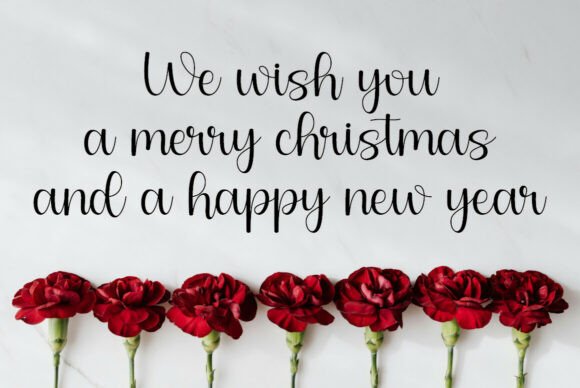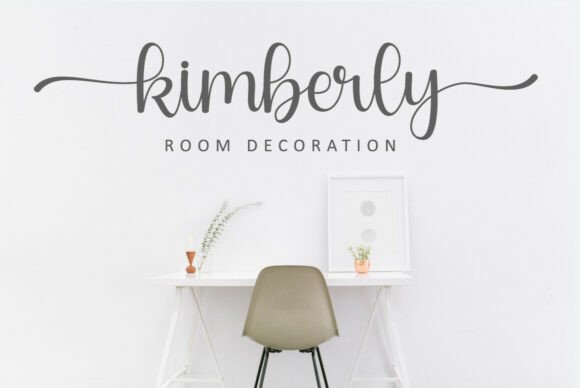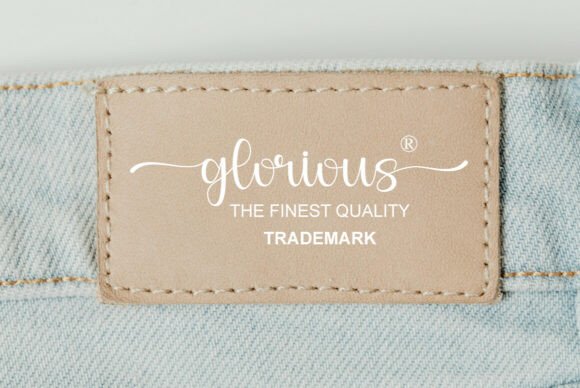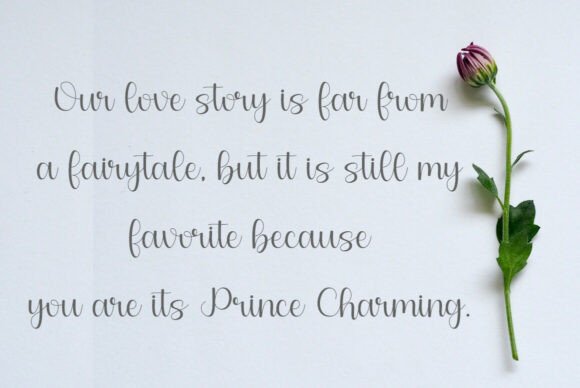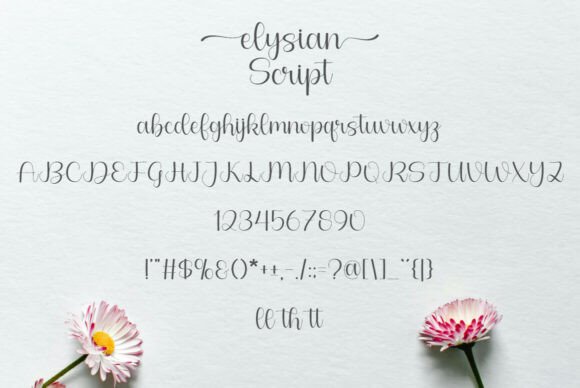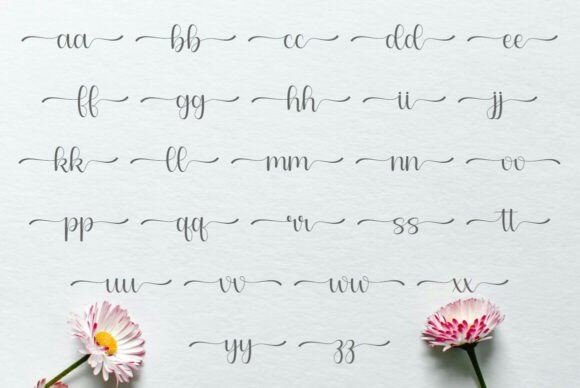
Elysian Script Font: Elevate Your Designs with Elegance and Sophistication
In the world of typography, few fonts capture the essence of elegance and romance as beautifully as the Elysian Script font. This charming, elegant, and gracefully flowing script typeface has been designed to add a touch of sophistication and intimacy to various design projects. With its fine, uniform stroke weight and stunning, oversized swashes, Elysian Script is the perfect choice for designers and crafters looking to infuse their work with a delicate, romantic, and inviting feel.
Characteristics of Elysian Script Font
Elysian Script font is a monoline, handwritten script that boasts a unique blend of intimacy and polish. Its sweeping lines and gentle curves make it an ideal choice for creating a signature look for various design applications. Some of the key characteristics of Elysian Script include:
• Fine, uniform stroke weight: The font features a consistent stroke weight that adds to its elegance and sophistication.
• Oversized swashes: The beautiful, oversized swashes extend with personalized flair, making each design unique and eye-catching.
• Monoline, handwritten script: The font maintains an intimate, authentic feel while delivering polished sophistication.
• Extensive language support: Elysian Script offers extensive language support, making it a versatile choice for designers working with clients from diverse linguistic backgrounds.
• Stylistic alternatives: The font provides stylistic alternatives, allowing designers to create unique text compositions that cater to their specific design needs.
Design Applications for Elysian Script Font
Elysian Script font is a versatile typeface that can be used in a variety of design applications, including:
• Wedding stationery: The font’s elegant and romantic feel makes it perfect for wedding invitations, save-the-date cards, and other wedding-related designs.
• High-end invitations: Elysian Script’s sophisticated and luxurious feel makes it ideal for high-end invitations, such as those used for corporate events or formal gatherings.
• Custom product packaging: The font’s unique and decorative style makes it a great choice for custom product packaging, adding a touch of elegance and sophistication to any product.
• Feminine branding: Elysian Script’s feminine and romantic feel makes it perfect for branding projects that cater to a female audience.
Practical Benefits of Elysian Script Font
While Elysian Script font is undoubtedly a decorative typeface, it also offers several practical benefits, including:
• Legibility: The font’s soft, legible letterforms ensure that it is easy to read, making it suitable for use in a variety of design applications.
• PUA encoding: Elysian Script font is PUA-encoded, ensuring effortless access to all glyphs and making it easy to use in design software.
• Decorative and practical: The font’s unique blend of elegance and legibility makes it both decorative and practical, suitable for use in a range of design projects.
In conclusion, Elysian Script font is a beautiful, elegant, and sophisticated typeface that offers designers and crafters a unique opportunity to elevate their designs with a touch of romance and luxury. With its fine, uniform stroke weight, oversized swashes, and extensive language support, Elysian Script is the perfect choice for designers looking to create stunning wedding stationery, high-end invitations, custom product packaging, and feminine branding. Whether you’re looking to add a touch of elegance to a blog header, social media quote, or logo design, Elysian Script font is a versatile and practical choice that is sure to impress.